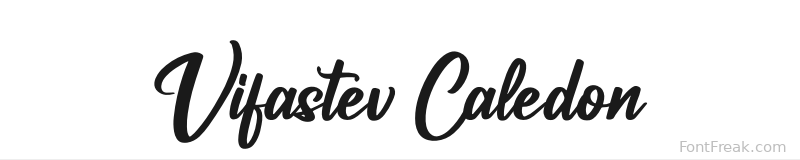
Vifastev Caledon Italic
Vifastev Caledon
About Vifastev Caledon Italic
Vifastev Caledon Italic is a stunning display font designed by Perspectype Studio in 2021, characterized by its elegant and fluid script style. This font is a perfect example of modern typography that balances sophistication with legibility, making it a versatile choice for various design projects. The italicized strokes exhibit a graceful curvature, with a medium stroke weight that provides a harmonious contrast against both light and dark backgrounds. The spacing between the letters is well-considered, allowing for readability while maintaining an airy feel.
The Vifastev Caledon Italic font free download opens up a world of creative possibilities. It is particularly well-suited for wedding invitations, where its romantic flair can capture the essence of special moments. Additionally, it shines in movie posters, giving a dramatic and artistic touch that draws attention. Restaurant menus can benefit from its inviting appearance, enticing diners with a sense of warmth and charm. Furthermore, content creators and social media marketers will find this font ideal for eye-catching graphics and promotional materials that require a personal touch.
Targeted towards graphic designers, small business owners, and content creators, Vifastev Caledon Italic provides an expressive option for those looking to enhance their visual communications. Its unique style makes it a go-to choice for branding and marketing materials that aim to stand out in a crowded marketplace.
What sets Vifastev Caledon Italic apart is its ability to combine elegance with functionality, ensuring that it not only captures attention but also serves its purpose effectively. This font embodies a modern aesthetic that resonates with both traditional and contemporary themes, making it a valuable addition to any typographic collection.